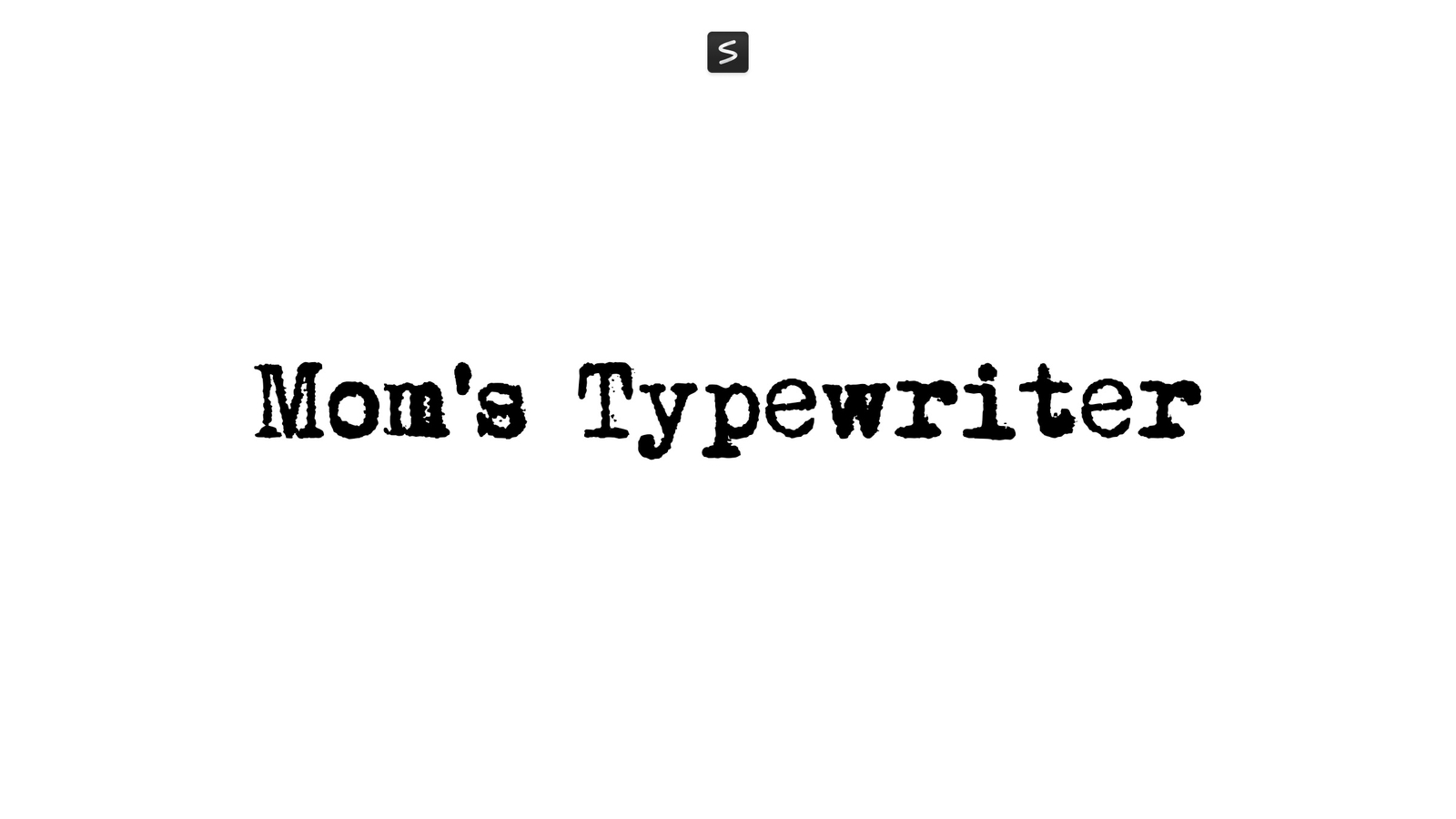
Mom's Typewriter Font
Mom’s Typewriter is a simple and nostalgic font designed by Christoph Mueller. It looks like old typewriter text, with slightly uneven and worn-out letters that give it a vintage feel.
This font is great for creating designs with a retro or personal touch, like handwritten notes or journal-style content. Its imperfect letters make it feel warm and human, perfect for projects that need a classic or emotional vibe. Whether for creative or casual use, Mom’s Typewriter brings back the charm of old typewritten documents.